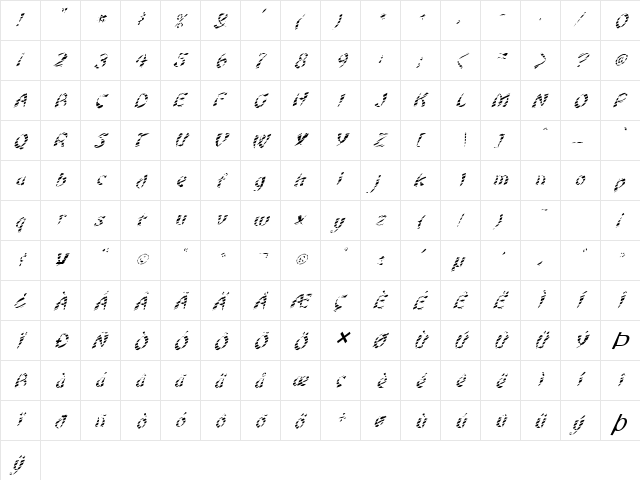
FZ UNIQUE 22 STRIPED ITALIC Normal Font Preview
FZ UNIQUE 22 STRIPED ITALIC Normal
FZ UNIQUE 22 STRIPED ITALIC Normal Font Details
Design Context for FZ UNIQUE 22 STRIPED ITALIC Typeface
FZ UNIQUE 22 STRIPED ITALIC is a composed and adaptable typeface that performs quietly and consistently across a wide range of design contexts. The slanted form adds forward momentum and visual energy.